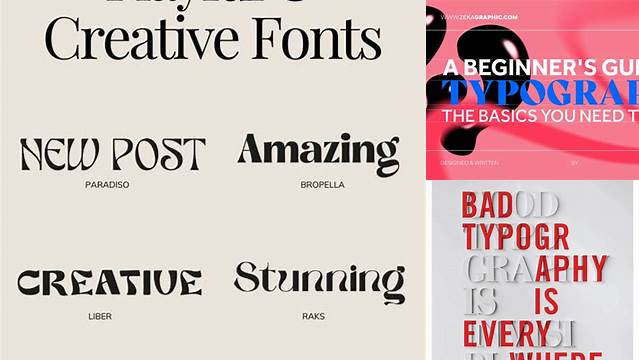
Graphic Fonts: Your Guide To Creative Typography
Welcome, fellow design enthusiasts! Today, we're diving deep into the awesome world of graphic fonts. You know, those visually stunning typefaces that make your designs pop, grab attention, and tell a story without even a single word? We're talking about fonts that aren't just readable but are characters in themselves, bringing personality and flair to everything from logos and websites to posters and social media graphics. So, buckle up, because we're about to explore how these amazing typographic tools can seriously level up your creative game. Whether you're a seasoned designer or just starting, understanding graphic fonts is a game-changer. Let's get this typography party started!
Understanding the Essence of Graphic Fonts
Alright guys, let's kick things off by really understanding what makes a font a graphic font. It's more than just letters; it's about visual impact and artistic expression. Think of it this way: regular fonts are like plain white bread – functional, get the job done. Graphic fonts, on the other hand, are like a gourmet sourdough loaf with seeds and a crispy crust – they have character, texture, and demand attention. These fonts are designed with aesthetics at their core. They often feature unique shapes, exaggerated serifs, unconventional strokes, or even illustrative elements built right in. The primary goal of a graphic font isn't just to convey information; it's to evoke a feeling, establish a mood, and create a memorable visual identity. They are the secret sauce that can transform a bland design into something truly captivating. When you’re choosing a graphic font, you’re not just selecting a typeface; you’re choosing an attitude, a style, and a visual voice for your project. It’s about the feeling it gives off. Does it feel modern and sleek? Or perhaps vintage and playful? Or maybe bold and rebellious? This is the power of graphic fonts – they speak volumes before you even read the words.
The Crucial Role of Graphic Fonts in Branding
When it comes to building a brand, guys, graphic fonts are your silent brand ambassadors. Seriously! Imagine your favorite brand. What comes to mind? Chances are, their logo and typography are a huge part of that mental image. That's because the right graphic font can instantly communicate a brand's personality, values, and target audience. A luxury brand might opt for an elegant, sophisticated serif font, exuding class and tradition. Meanwhile, a tech startup might choose a clean, geometric sans-serif font, projecting innovation and modernity. A playful children's toy company would likely go for a rounded, whimsical font that screams fun and approachability. The font you choose for your brand is a deliberate decision that shapes perception. It's not just about looking good; it's about resonating with your ideal customer. A well-chosen graphic font can build trust, create an emotional connection, and make your brand instantly recognizable in a crowded marketplace. It’s the visual handshake that sets the tone for all future interactions. Think about it: if a brand uses a font that feels out of sync with its message, it can create confusion and undermine its credibility. That’s why investing time in selecting the perfect graphic font for your branding is absolutely crucial. It’s an investment in your brand’s identity and its long-term success. It's the foundation upon which your visual communication is built.
Exploring Different Categories of Graphic Fonts
Okay, so graphic fonts aren't just one big blob. They come in a wild variety of styles, each serving a different purpose and evoking different vibes. Let's break down some of the most popular categories you’ll encounter, guys. First up, we have Display Fonts. These are the divas of the font world – bold, attention-grabbing, and meant for headlines, titles, and short bursts of text where impact is key. Think big, chunky letters or intricate, stylized scripts. They're not really built for long paragraphs, but man, do they make a statement! Then there are Script Fonts, which mimic handwriting or calligraphy. They can range from elegant and formal (think wedding invitations) to casual and playful (like a handwritten note). They add a personal, human touch. Next, we've got Decorative Fonts. This is where things get really creative! These fonts often incorporate illustrations, patterns, or unique shapes into the letterforms themselves. They're perfect for adding a unique flair to posters, invitations, or any design that needs a serious dose of personality. Think fonts that look like they’re made of flowers, chains, or even dripping paint! Retro and Vintage Fonts are another huge category, drawing inspiration from past eras like the 50s, 70s, or even Victorian times. They bring a nostalgic feel, perfect for brands wanting to evoke a sense of history or classic style. Finally, Abstract and Experimental Fonts push the boundaries even further, often breaking traditional typographic rules to create something entirely new and avant-garde. These are for designers who want to make a truly bold, unconventional statement. Understanding these categories helps you pick the right tool for the job, ensuring your message lands exactly how you want it to.
The Power of Serif Graphic Fonts
Let's talk about serifs, guys! You know, those little feet or decorative strokes at the end of the main strokes of a letter? Well, when these are amplified or stylized, they become powerful graphic fonts that bring a whole lot of personality. Traditional serif fonts like Times New Roman are often associated with readability and a sense of formality, often found in books and newspapers. But when designers get their hands on them and turn them into graphic fonts, they can evoke a completely different feeling. Think of classic, elegant serifs that scream luxury and sophistication – perfect for high-end fashion brands or prestigious institutions. Then there are the chunky, slab-serif fonts, which have a bolder, more robust feel, often used in vintage advertising or to give a design a strong, grounded presence. Some graphic serif fonts play with exaggerated, ornate serifs that look almost like flourishes or decorations, adding a touch of artistic flair and unique character. These can be fantastic for editorial design, book covers, or projects aiming for a more literary or artistic vibe. The key is that these serifs aren't just functional; they're decorative elements that contribute significantly to the overall aesthetic and message of the design. They can add warmth, history, or a sense of gravitas, depending on how they're used. So, don't underestimate the power of those little strokes – in the world of graphic fonts, they can be the star of the show!
The Versatility of Sans-Serif Graphic Fonts
Now, let's flip the script and talk about sans-serif graphic fonts, guys! Sans-serif literally means